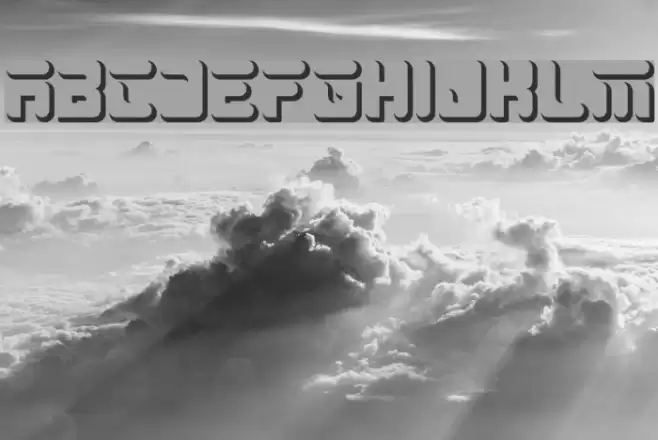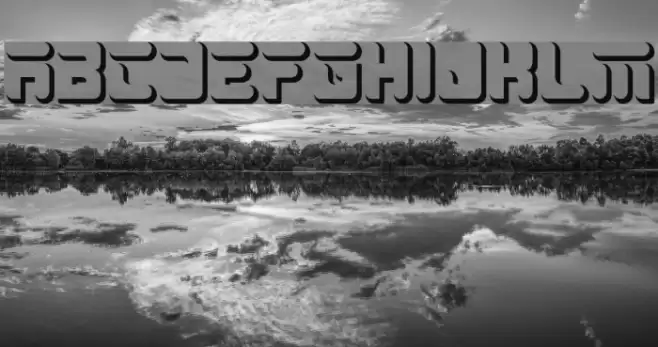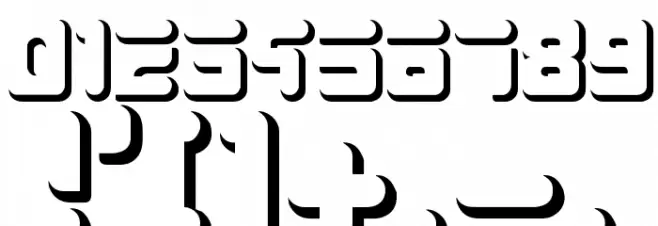
Big White Font
Big White Description
This font features a bold, futuristic design with a distinct three-dimensional effect. The characters are constructed with thick, block-like strokes that give a sense of depth and solidity. Each letter is uniquely styled with rounded edges and a shadow effect that enhances its visual impact. The font maintains a consistent height and width across all characters, providing a uniform appearance. Its geometric structure and modern aesthetic make it stand out, while the shadowing adds a layer of complexity and intrigue. The numbers and special characters follow the same design principles, ensuring cohesion throughout the set.
A bold, futuristic font with a 3D shadow effect and geometric design from Uncategorized fonts.